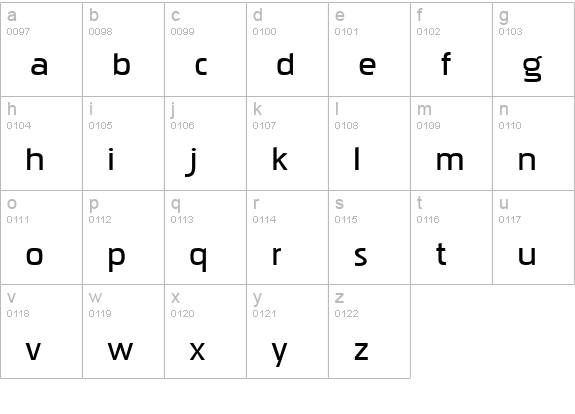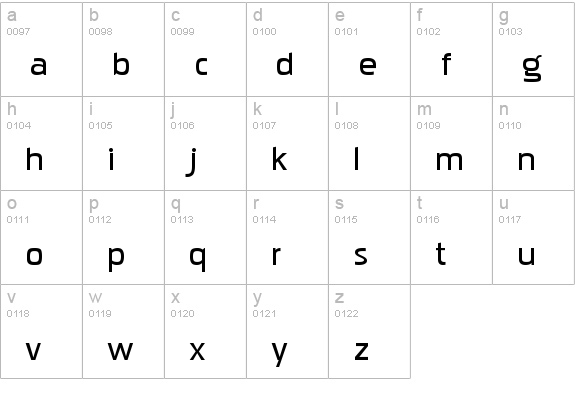
Pakenham Xp Bk Font Details
Pakenham Xp Bk font is a stylish and modern typeface that exudes sophistication and elegance. With its clean lines and contemporary design, this font is perfect for a wide range of projects, from branding to editorial design. The bold and versatile characters of Pakenham Xp Bk font make it a great choice for headlines, titles, and logos. What's even better is that Pakenham Xp Bk font is available for free download at FontsMarket.com. This means you can easily access this high-quality font without having to spend a dime. Whether you're a graphic designer, a student, or a hobbyist, Pakenham Xp Bk font is a valuable addition to your font library. Download it today and elevate your designs with this modern and stylish typeface.